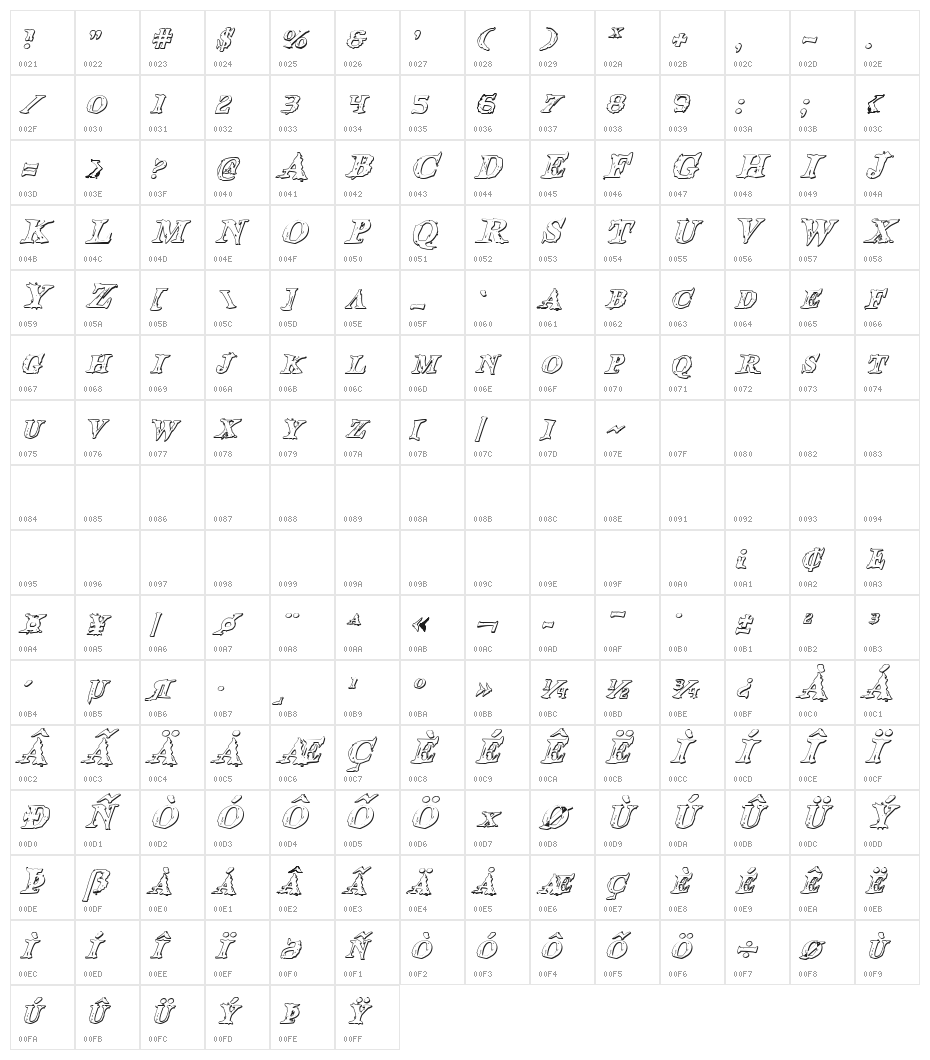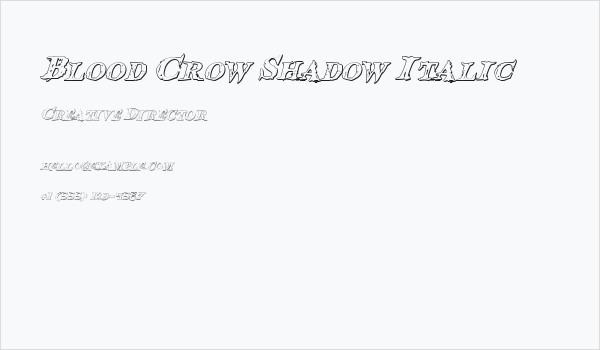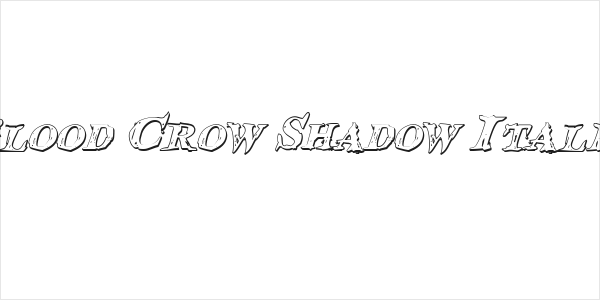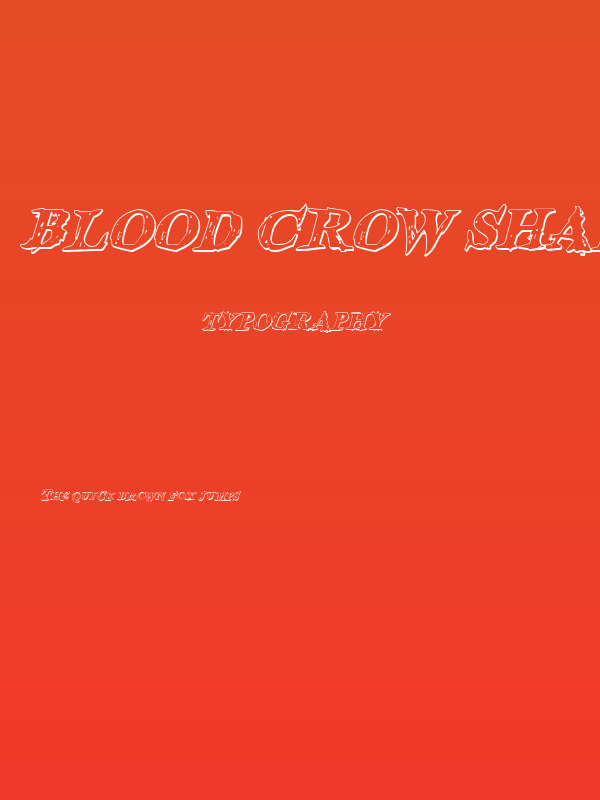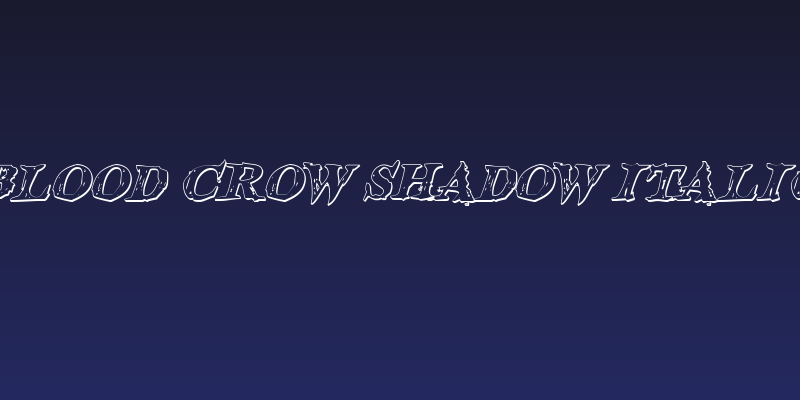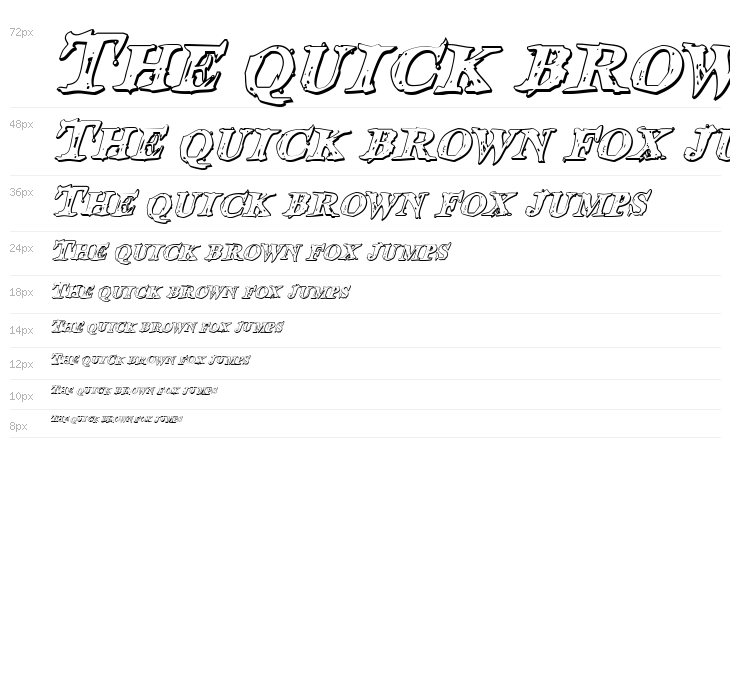
Blood Crow Shadow Italic Font
Blood Crow Shadow Italic Description
This font features a dramatic and bold design with a shadow effect that gives it a three-dimensional appearance. The letters are italicized, adding a sense of movement and dynamism. Each character is outlined with a rough, jagged edge, creating a distressed look that is both edgy and eye-catching. The font's unique style makes it stand out, with a high level of detail in the shadowing and texture. It is particularly suited for projects that require a strong visual impact, such as horror-themed designs or bold branding materials.
| Proposed Projects | Ideal for horror-themed designs, edgy branding, posters, and album covers. |